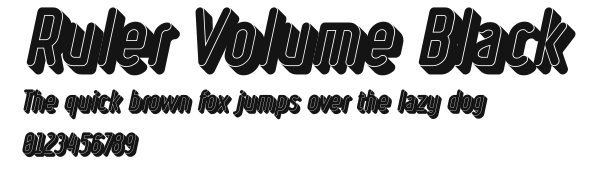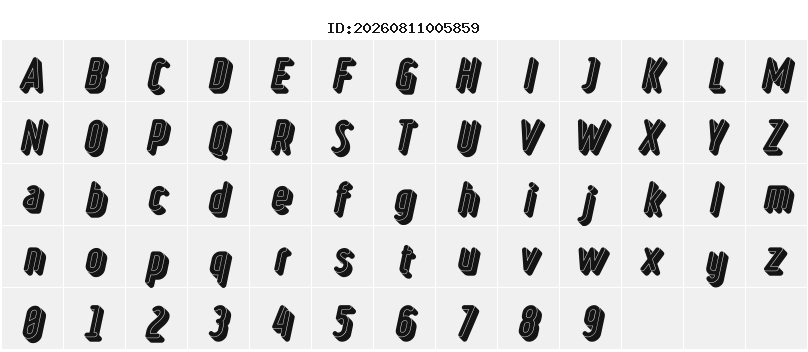
• Font Name: Ruler Volume Black
• Full Font Name: Ruler Volume Black
• Designer: Levi Szekeres
• Manufacturer: Levi Szekeres
• Description: Ruler Font
About Ruler Volume Black.ttf
Ruler Volume Black.ttf is a modern, elegant sans-serif font designed for ultimate readability and visual harmony. Perfect for branding, headlines, web design, and print materials.